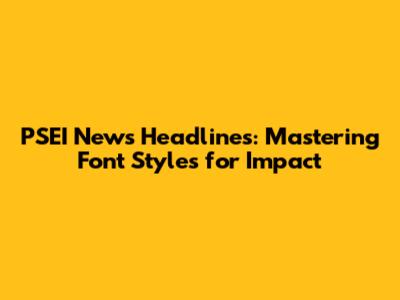
Hey guys! Ever stopped to think about how much font styles influence what you read, especially when it comes to news? We're diving deep into the world of PSEI News headlines and how the right font can make or break a headline. It's not just about picking a font; it's about making a statement, grabbing attention, and ensuring your message hits home. So, let's get down to the nitty-gritty of choosing the perfect font style for those crucial headlines.
The Psychology Behind Font Choices
Okay, so why should you care about font styles in the first place? Well, the truth is, fonts are like secret agents. They sneak into your brain and influence your perception of the content. Seriously! Different fonts evoke different feelings and attitudes. For example, a serif font, like Times New Roman, can make a headline feel classic, reliable, and trustworthy – perfect for financial news or anything that needs to project a sense of stability. Think of it like the old, dependable news anchor. On the flip side, a sans-serif font, such as Arial or Helvetica, often comes across as modern, clean, and straightforward. These are awesome choices when your aim is to convey a sense of immediacy or innovation, which aligns perfectly with technology or fast-paced updates. Then you have the more playful fonts, like those you might see in a comic or a lifestyle blog. These are typically not the best choice for a news headline, as they might not be taken seriously. The goal is always to match the font style to the message you're trying to communicate, making sure the visual cues support the content itself. Choosing the right font is about knowing your audience and what kind of vibe they're looking for, or at least, the vibe you want them to get.
Key Font Style Considerations for PSEI Headlines
When we specifically look at PSEI News headlines, there are a few things you gotta keep in mind. First off, readability is king. Headlines need to be instantly understandable. If a reader has to squint or puzzle over the words, you've already lost them. So, high legibility is crucial. This means choosing fonts that are easy to read at different sizes and on various devices. Don't go for anything too ornate or complicated – simplicity often wins. Contrast is super important too. Ensure that your text stands out from the background. This is especially true if you are planning to use images in the background. A great font style will often lose its effectiveness if the background colors aren't considered. The color and style must work in tandem to convey the news effectively. Then there is consistency. Pick a font and stick with it (or at least, a family of fonts). This helps build brand recognition and makes your headlines instantly recognizable. Switching fonts around too much can make your news look scattered and unprofessional. Consistency builds trust, too, which is vital when you're trying to share reliable information. Another pro tip? Check how your font renders on different screen sizes. A font that looks great on your desktop might be a blurry mess on a smartphone, so it's a good idea to always test.
Specific Font Recommendations and When to Use Them
Alright, let's get into some specific font recommendations for those PSEI News headlines. For a clean, modern look, you can't go wrong with Open Sans. It is a sans-serif font that is highly readable and works well at various sizes. It is a workhorse, guys, and it is great for headlines where you want to keep the focus on the information itself. For a more classic feel, try Roboto. It's a versatile sans-serif that's been gaining in popularity. It's got a friendly yet professional vibe and is incredibly readable. If you are going for a more authoritative, trustworthy appearance, consider Lato. Another great option is Merriweather. It's got a slightly condensed look, which can give your headlines a powerful presence without being too overpowering. But when should you use these fonts? Well, that depends. Open Sans and Roboto are safe bets for almost any type of news. If you are reporting on technology or market trends, you may choose to use Lato to convey an image of authority and experience. Always consider the tone of the news you are trying to share and match the font to the message. Remember, you can always test different fonts to see what works best. No matter what, make sure you're always considering your audience. What font styles will they find the most engaging and easy to understand? This is the key.
Avoiding Common Font Mistakes in Headlines
Okay, let's talk about some font mistakes that you should avoid like the plague. First off, don't use too many different fonts in a single headline. Keep it simple! It is tempting to get creative, but it often ends up looking messy and unprofessional. Stick to one or two fonts at most. Another big no-no is using fonts that are too small. Always make sure your headlines are big and bold enough to be easily read, even on small screens. Also, stay away from fonts that are overly decorative or hard to read. This includes fonts that are too thin, too bold, or have unusual letterforms. Legibility is super important, guys! Lastly, be aware of kerning and spacing. Make sure the letters in your headlines are properly spaced. Too little space, and the words will run together; too much space, and they'll look disconnected. Proper kerning, the space between letters, makes a huge difference in readability. Always review your headlines at different sizes to make sure they look clean and professional. The smallest details, such as spacing, can often make the biggest impact on the final look and feel of your headlines.
Font Pairing and Design Principles for Effective Headlines
Font pairing is an art, guys, and it can dramatically improve the visual appeal of your headlines. The key is to find fonts that complement each other without clashing. One common approach is to pair a serif font for headlines with a sans-serif font for body text, or vice versa. This contrast can create a visually interesting and readable design. You can also explore font families. These are fonts designed to work well together. They usually share a similar style, making it easy to create a consistent look. When pairing fonts, remember the design principles. Hierarchy is important. Make sure your headline is the most prominent element on the page, followed by any subheadings or supporting text. Contrast is key to making your design stand out. Use different sizes, weights, and colors to create visual interest. Balance is also important. Strive for a layout that feels balanced and not cluttered. All of these design elements are important, and they can all influence how users read your headlines. When you keep these elements in mind, you can create headlines that are visually appealing and easy to read.
Tools and Resources for Font Selection and Testing
Okay, so where can you find the perfect font for your PSEI News headlines? There are plenty of resources available. Google Fonts is an awesome place to start. It offers a huge selection of free, open-source fonts that are easy to use and download. It’s also super easy to use and is user-friendly. Another great resource is Adobe Fonts. If you have an Adobe Creative Cloud subscription, you get access to thousands of high-quality fonts. Font Squirrel is another solid resource. It features a curated collection of free fonts that are available for both personal and commercial use. Once you have picked a font, how do you make sure it works? Test, test, test! Test your headlines on different devices and in different contexts. See how they look on a desktop, a tablet, and a smartphone. Ensure the font is readable in different lighting conditions and against different backgrounds. Many online tools let you preview fonts and test them in different sizes and layouts. These tools allow you to make sure your font will work perfectly. Always consider your audience, your content, and the overall look and feel you are trying to create. With the right tools and a little bit of testing, you can nail it!
Conclusion: Crafting Headlines That Command Attention
So, there you have it, guys. We have covered the essentials of font styles for PSEI News headlines. From understanding the psychology of fonts to avoiding common mistakes, and using the best tools. You can make your headlines more engaging and impactful. Always remember that the right font can make a big difference in how your message is received. So, go ahead and experiment, test different fonts, and find what works best for your content. The most important thing is to create headlines that are easy to read, visually appealing, and capture the attention of your readers. With a little care and attention, you can create headlines that not only inform but also engage and inspire. Now go forth and conquer the world of headlines, one awesome font at a time!